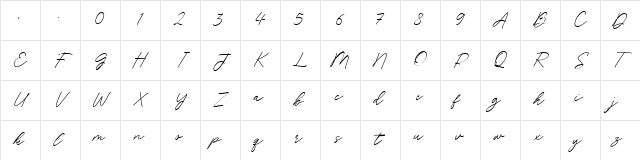
Homestone Regular Free Font
Homestone Regular
Designer: Iqbal Pauji
Design Context for Homestone
Homestone is a composed and adaptable typeface that performs quietly and consistently across a wide range of design contexts.